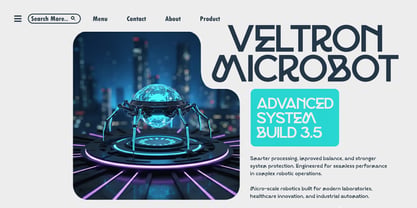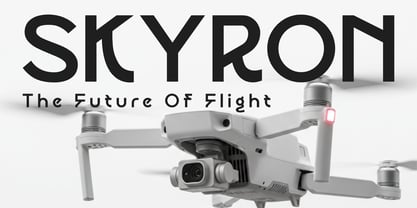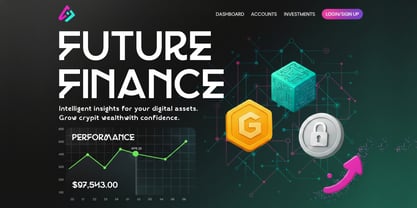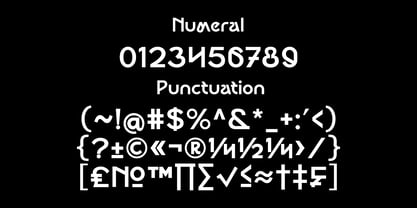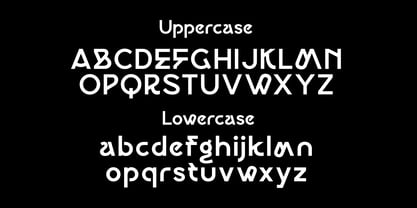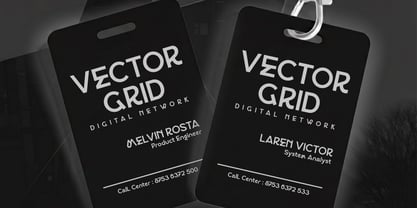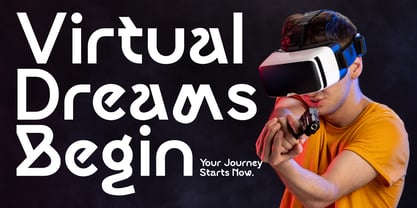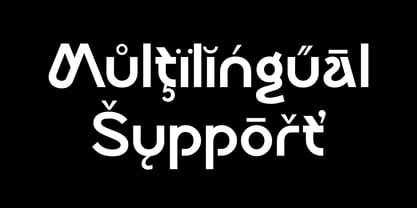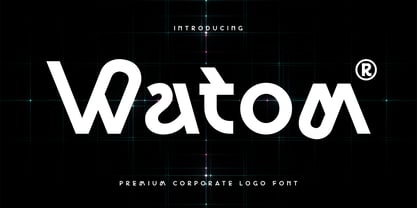
Watom
by Sealoung
The Watom Font Family was designed by Saiful Anwar and published by Sealoung. Watom contains 1 styles. More about this family
Watom – Premium Corporate Logo Font Watom is a premium corporate logo font designed to embody sophistication, authority, and modern professionalism. Built with precise geometry, confident proportions, and refined curves, this typeface delivers a clean and powerful presence for high-end branding. Crafted for businesses that value credibility and distinction, Watom reflects stability, innovation, and executive confidence. Its carefully balanced letterforms—particularly in characters like W, a, and m—create a memorable visual identity that feels both timeless and contemporary. Perfect for corporate logos, financial institutions, consulting firms, technology companies, and luxury brands seeking a strong yet elegant typographic voice. FEATURES Premium corporate style Clean, confident, and authoritative design Distinctive yet highly professional letterforms Uppercase, lowercase, numbers, and punctuation Ideal for logo, branding, and executive identity Multilingual support
My name is Saiful Anwar, We live in Mojokerto, Indonesia. We started my type foundry studio called Sealoung Studio in 2020. Sealoung is a Type Design Studio that makes unique fonts for your business purpose. We are always interested and focused on aesthetics, functionality, legibility, suitable for branding and broad design purposes. When creating a font, we usually start by exploring the characters first. Most of the time we draft letters by drawing them until it gets a character that has a deep personality. His works span a variety of styles and themes and have been trusted by major, local and international companies. Let's be a friend and follow us to get our products updates. Thank You!